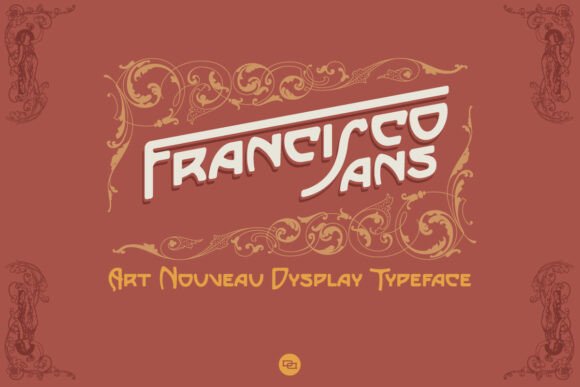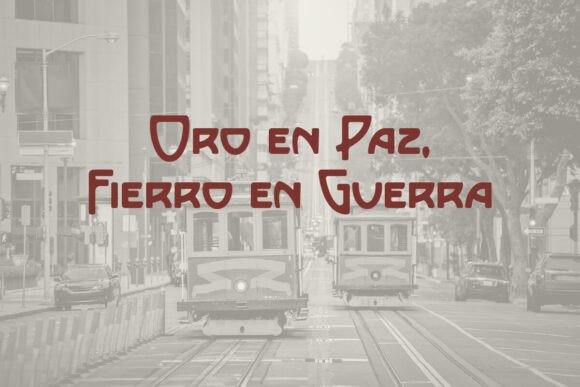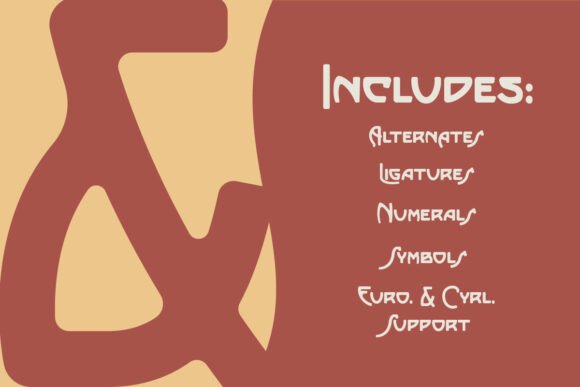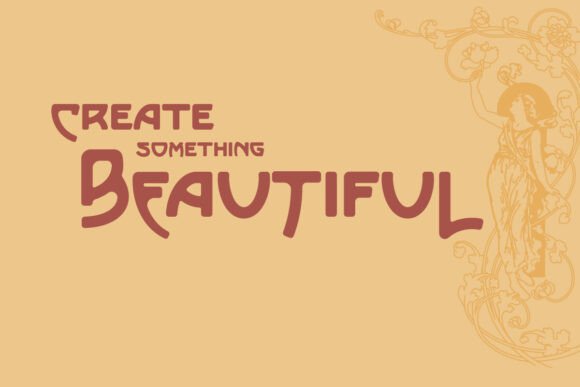
Francisco Sans Font
About the Francisco Sans Font
The Francisco Sans Font is here to transform your projects with its distinctive character and style. San Francisco is an art nouveau display typeface that captures the essence of the late 1800s arts and crafts movement. With simple yet brush-like strokes and line-work, each character reflects the elegance and creativity of a bygone era. Inspired by a vintage music sheet cover of the same name, this typeface evokes a nostalgic charm, ideal for adding a touch of historical flair to your designs. Its unique and graceful form makes it perfect for posters, invitations, and branding that seek to celebrate the timeless beauty of the art nouveau period. San Francisco brings a classic, artistic touch to any project.
Francisco Sans Font Usage Examples
Francisco Sans Font Example